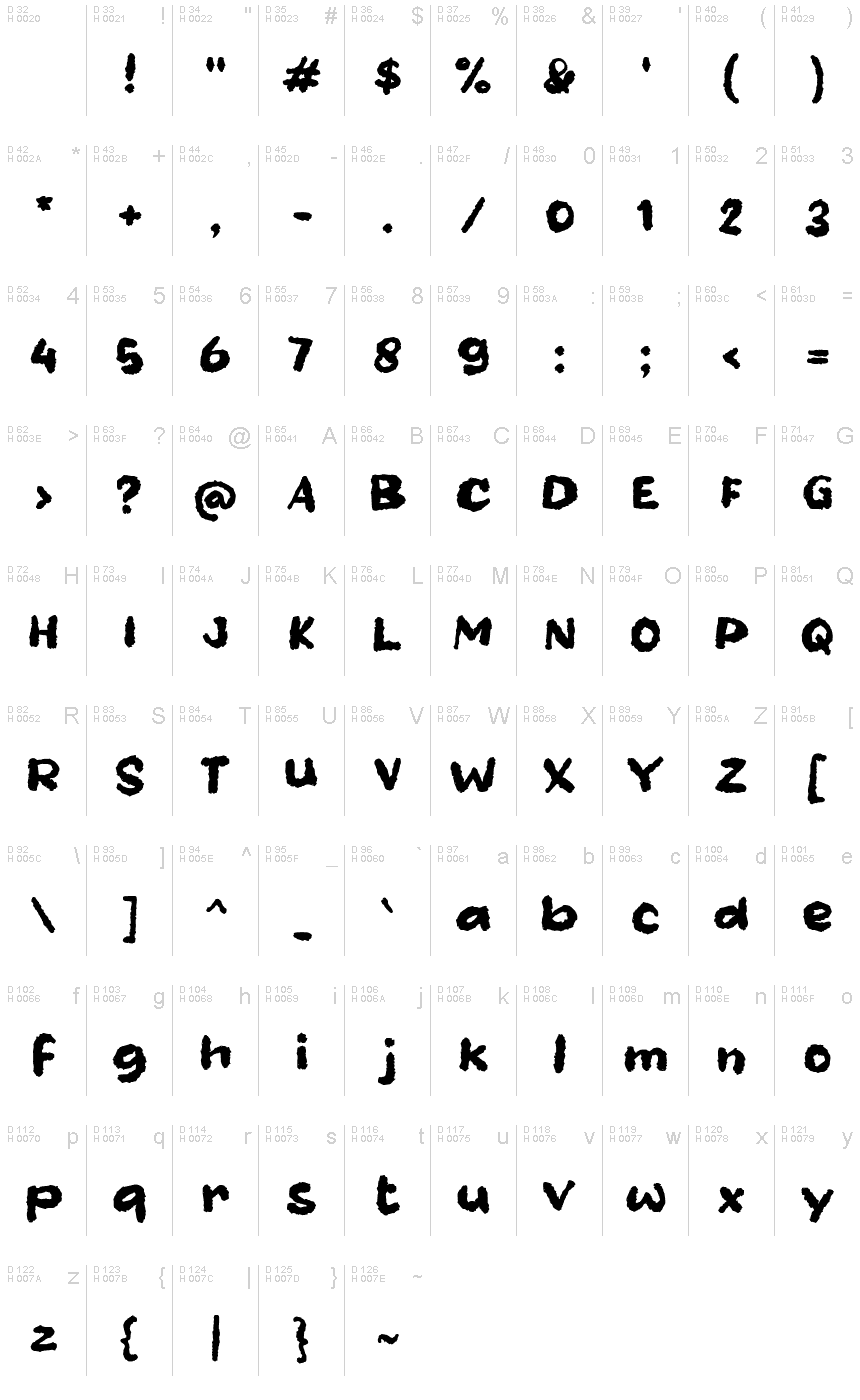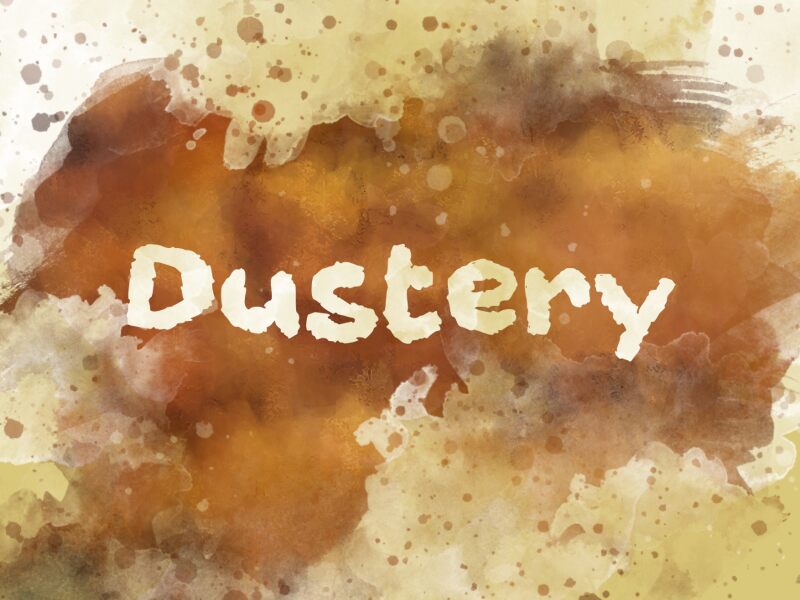
Dustery
Dustery font is a bold, wide script designed by Wahyu Eka Prasetya. Its trash style gives it a unique, grungy look that is perfect for projects such as poster design, logos, album covers and more.